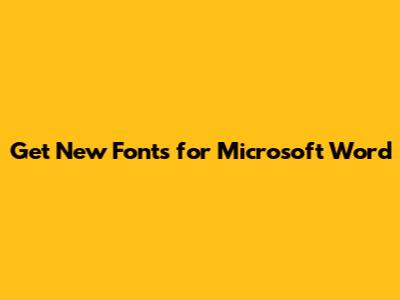
Hey guys! Ever felt like your Word documents are looking a little, well, boring? You know, the same old Times New Roman or Arial staring back at you? It’s time to spice things up! Downloading fonts for Microsoft Word is one of the easiest and most impactful ways to give your projects a fresh, professional, or even just a more you vibe. Whether you're crafting a resume, designing a flyer, or writing your novel, the right font can make all the difference. Think of fonts as the clothing for your words – you wouldn't wear the same outfit every day, right? So why should your text? In this guide, we're going to walk through exactly how to find and install new fonts so you can elevate your Microsoft Word game. We'll cover where to find free fonts, how to download them, and the simple steps to get them showing up in Word. Get ready to transform your documents from drab to fab!
Why You Need More Fonts in Your Life
Alright, let's talk about why going beyond the default fonts is such a big deal. Downloading fonts for Microsoft Word isn't just about aesthetics; it's about communication and impact. Different fonts evoke different emotions and carry different meanings. A bold, sans-serif font might convey modernity and strength, perfect for a business report. A whimsical, handwritten script font could be ideal for a birthday invitation or a creative project. Conversely, a classic serif font often lends an air of tradition, authority, and readability, making it a go-to for books and academic papers. By having a diverse font library, you gain the power to tailor the feel of your document precisely to its purpose and audience. Imagine sending out a job application in a playful, cartoonish font – probably not the best first impression, right? On the flip side, using a standard font for a creative piece might make it feel uninspired. The right typography can improve readability, guide the reader's eye, and even subtly influence their perception of your message. Plus, let's be real, it's way more fun to design and write when you have a palette of beautiful typefaces to play with. It allows for greater personalization and creativity, helping your work stand out in a sea of sameness. So, consider this your invitation to explore the vast, exciting world of typography and discover how a simple font download can unlock a new level of design potential for all your Microsoft Word creations. It’s about making your words not just seen, but felt.
Where to Find Awesome Free Fonts
Now for the good stuff – where do you actually find these amazing fonts? Don't worry, guys, you don't need to break the bank. There are tons of fantastic websites out there offering high-quality fonts completely free for personal use (and often commercial use too, but always double-check the license!). One of the most popular and reliable places to start is Google Fonts. They have a massive library of open-source fonts that are beautifully designed and easily downloadable. Another excellent resource is Font Squirrel. They curate free, high-quality fonts, often specifically for commercial use, which is a huge plus. You’ll find everything from sleek modern sans-serifs to elegant serifs and unique display fonts. DaFont is another classic go-to, offering a humongous collection, though you’ll need to be a bit more careful about checking licenses here as it's a mix of free for personal use and paid fonts. For a more curated selection, check out FontSpace and Urban Fonts. These sites also provide a great variety of styles. When you're browsing, think about what you need. Are you looking for something clean and professional? Or maybe something quirky and decorative? Pay attention to the font categories – serif, sans-serif, script, display, handwriting, etc. – to narrow down your search. Remember to always look for the license information associated with each font. Most free fonts are perfectly fine for personal projects, but if you plan to use them for a business or anything you'll be selling, make sure the license permits commercial use. This simple step saves a lot of potential headaches down the line. So dive in, explore, and start building your dream font collection!
Using Your New Fonts in Microsoft Word
So you've downloaded and installed your fonts – high five! Now comes the fun part: actually using them in Microsoft Word. Using your new fonts in Microsoft Word is just as simple as installing them. Open up Microsoft Word and start a new document or open an existing one. Look at the 'Home' tab in the ribbon at the top. You'll see the font selection box, which usually defaults to something like Calibri or Arial. Click on the little down arrow next to the current font name. This will open up a dropdown list of all the fonts installed on your computer. Scroll through this list, and you should see your newly installed fonts right there, ready to be used! Just click on the font you want to apply. You can then type with it, or select existing text and apply the new font. Experiment! Try out different fonts for headings, body text, or quotes. Remember the principles we talked about earlier: different fonts for different purposes. A decorative font might look great for a title but could be a nightmare to read in a long paragraph. Use sans-serifs like Open Sans or Lato for a clean, modern feel in body text. Opt for serifs like Merriweather or Lora if you want a more traditional, readable block of text. And don't forget about script or display fonts for special emphasis or titles! Most applications, including Word, allow you to change font size, color, and style (bold, italic, underline) independently of the font face itself. This gives you even more control over your document's appearance. Play around with combinations, but try not to use too many different fonts in a single document – usually, two or three complementary fonts are plenty to keep things looking professional and not chaotic. Happy typing!
Tips for Choosing and Using Fonts Wisely
Alright team, let's talk strategy. Choosing and using fonts wisely in Microsoft Word is key to making your documents look polished and professional, not just pretty. First off, readability is king. No matter how fancy or cool a font looks, if people can't easily read the text, it’s failed its primary job. For body text, especially in longer documents, stick to clean, well-spaced fonts. Serif fonts (like Garamond or Georgia) are traditionally great for print because the little 'feet' on the letters help guide the eye. Sans-serif fonts (like Helvetica or Montserrat) are often preferred for screen reading due to their clean lines. Always test your chosen fonts in the actual size you plan to use them. A decorative font that looks amazing at 72pt for a headline might become completely illegible at 10pt for body text. Secondly, consider the mood and purpose of your document. A wedding invitation will call for a different font than a financial report. Think about the message you want to send. Do you want to appear serious and authoritative, or friendly and approachable? Your font choice plays a huge role here. Another tip: limit your font palette. While having a big library is great, using too many different fonts in one document can make it look messy and unprofessional. Aim for a maximum of two or three complementary fonts. Often, a good combination includes a font for headings and another for body text. You can even use different weights (bold, light) of the same font family for a cohesive look. Lastly, pay attention to licensing. We mentioned this before, but it’s crucial, especially if you're using fonts for commercial purposes. Ensure the font license allows for your intended use. By keeping these tips in mind, you’ll be well on your way to using typography like a pro in Microsoft Word, making all your documents shine.
Troubleshooting Common Font Issues
Even with the best intentions, sometimes things don’t go perfectly when downloading fonts for Microsoft Word. Don't sweat it, guys! We've all been there. One common issue is that a newly installed font just doesn't show up in Word. The first thing to try is simply closing Microsoft Word completely and then reopening it. Word often loads the font list when it starts up, so a restart is usually all that's needed. If that doesn't work, try restarting your entire computer. This can help refresh the system and ensure the font is recognized. Another problem can be corrupted font files. If a font won't install or causes Word to crash, the download might have been incomplete or the file itself is bad. Try downloading the font again from the source website. If it's a ZIP file, make sure it extracts correctly without errors. Sometimes, fonts might look slightly different or not display properly if the necessary font files weren't installed correctly. Double-check the installation steps for your operating system. If you're working on a shared document or collaborating with others, you might encounter font substitution. This happens when someone else opens your document, but they don't have one of the specific fonts you used installed on their computer. Word will automatically replace it with a similar font, which can mess up your carefully crafted layout. The best ways to avoid this are to either ensure collaborators have the necessary fonts installed or to use widely available system fonts. For important documents where layout is critical, you can also embed the fonts within the Word file itself. Go to File > Options > Save, and check the box that says 'Embed fonts in the file'. This makes your file larger but ensures it looks exactly the same on any computer. Finally, be mindful of font conflicts. Occasionally, having too many similar fonts installed, or fonts from unreliable sources, can cause system issues. If you suspect a font is causing problems, try uninstalling it and see if the issue resolves. Remember, patience is key when troubleshooting!